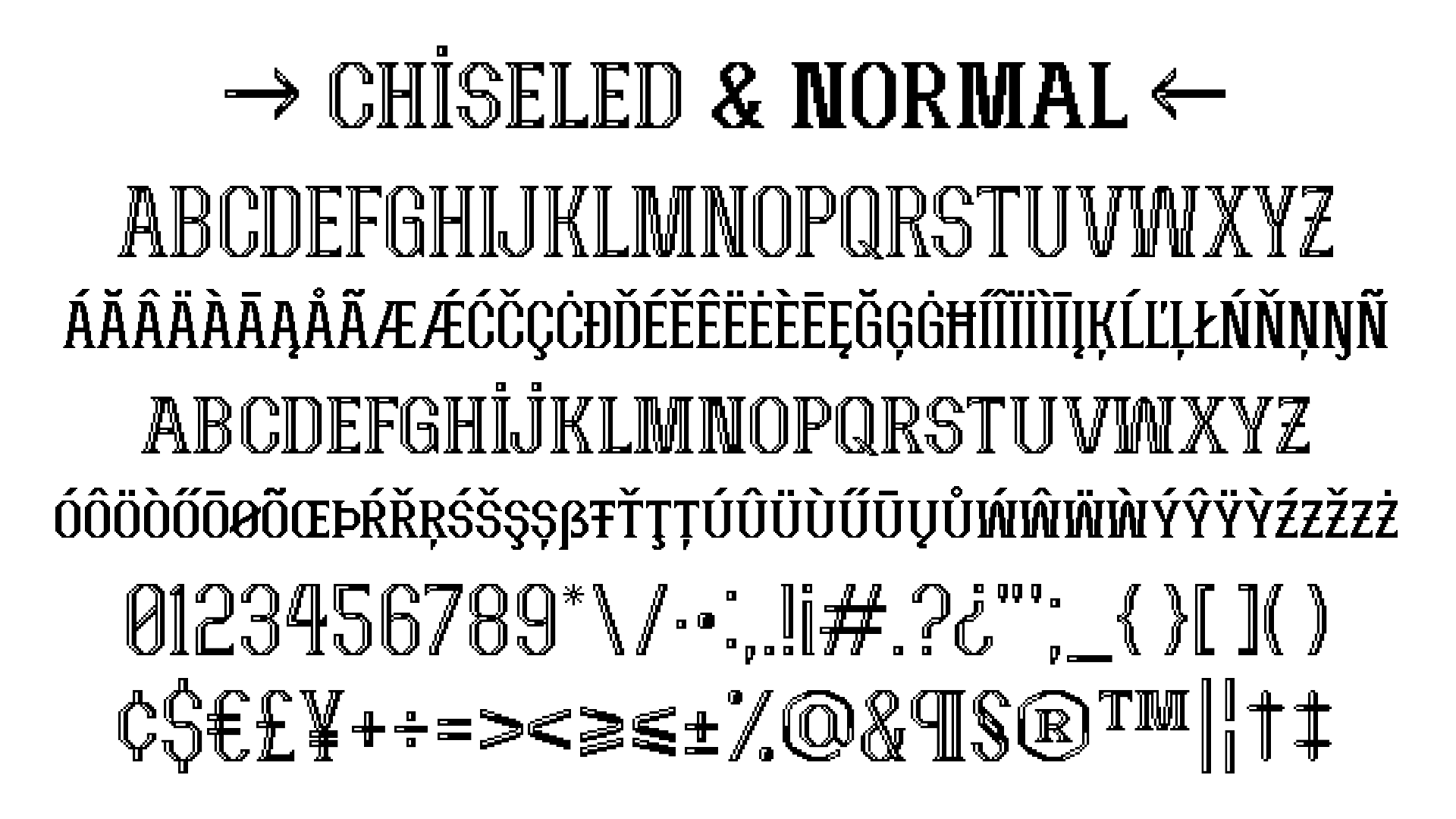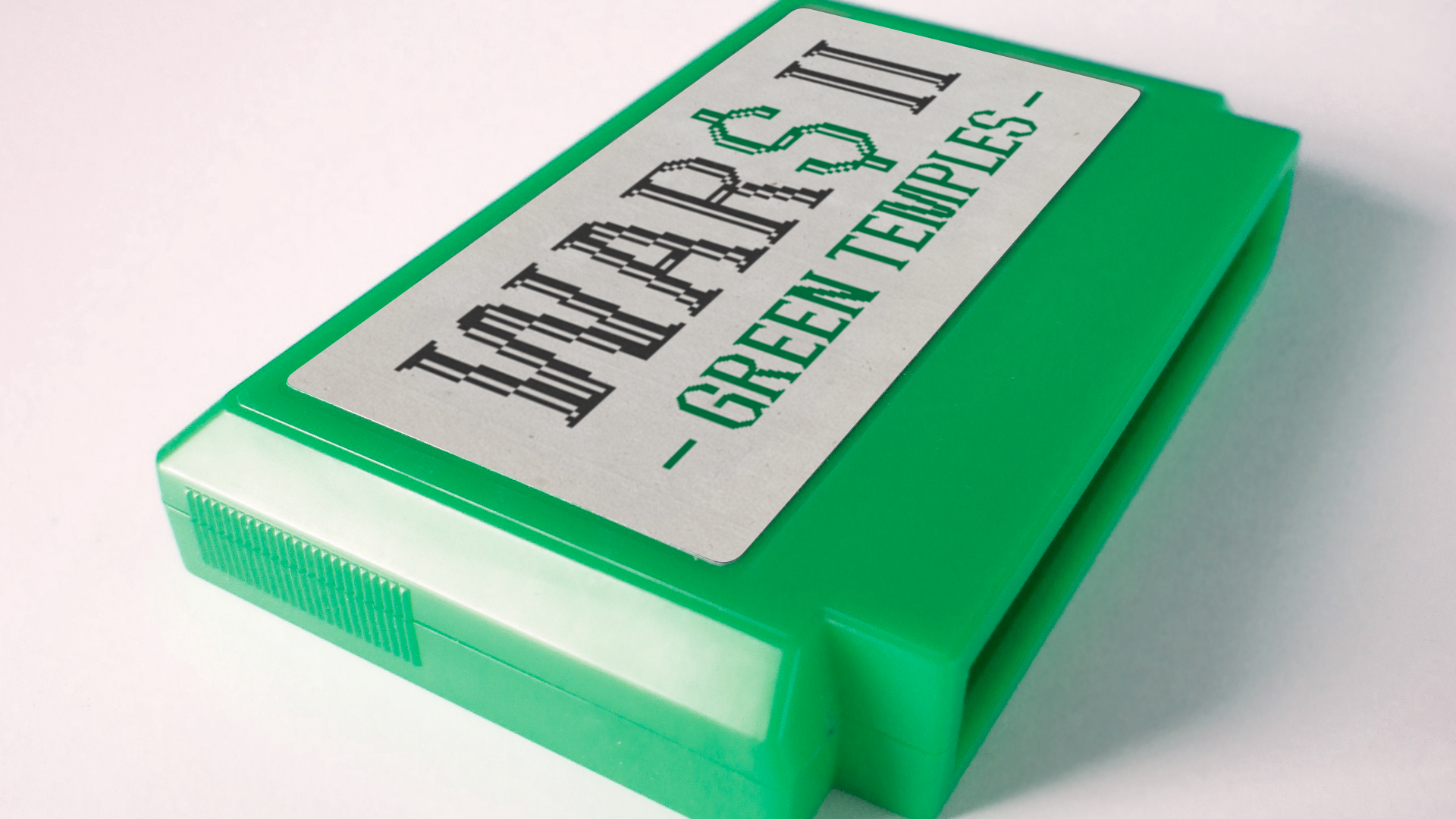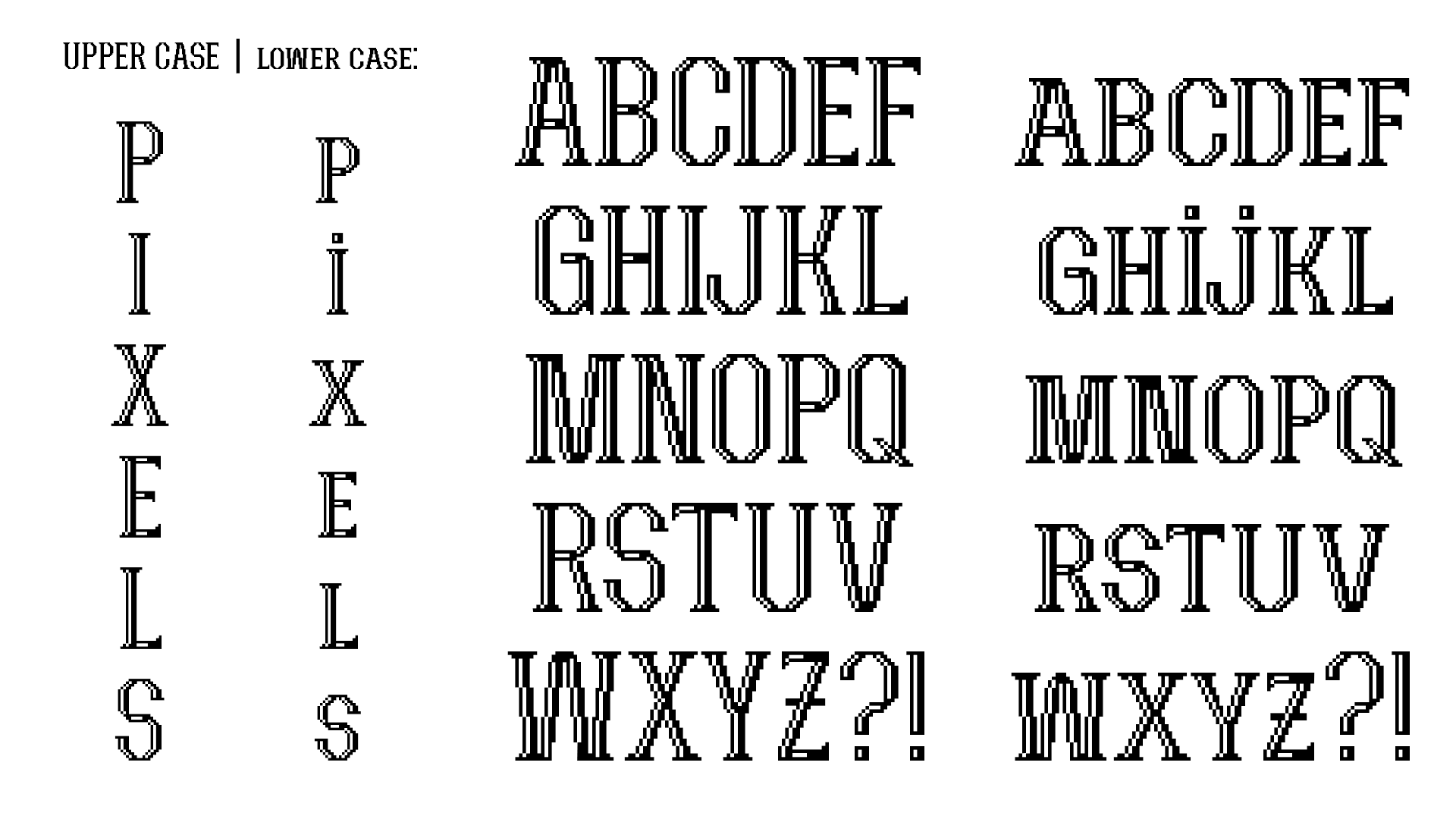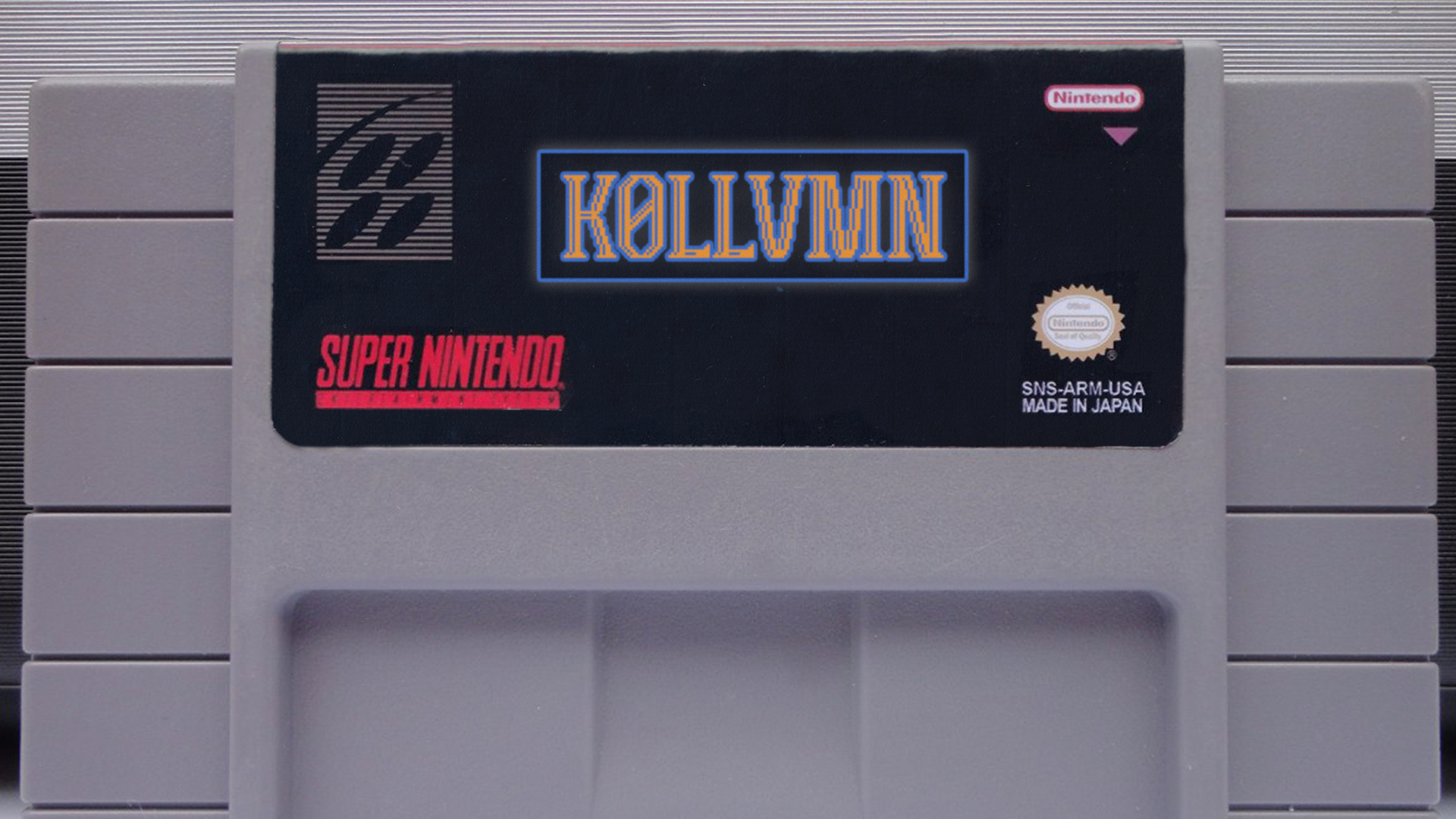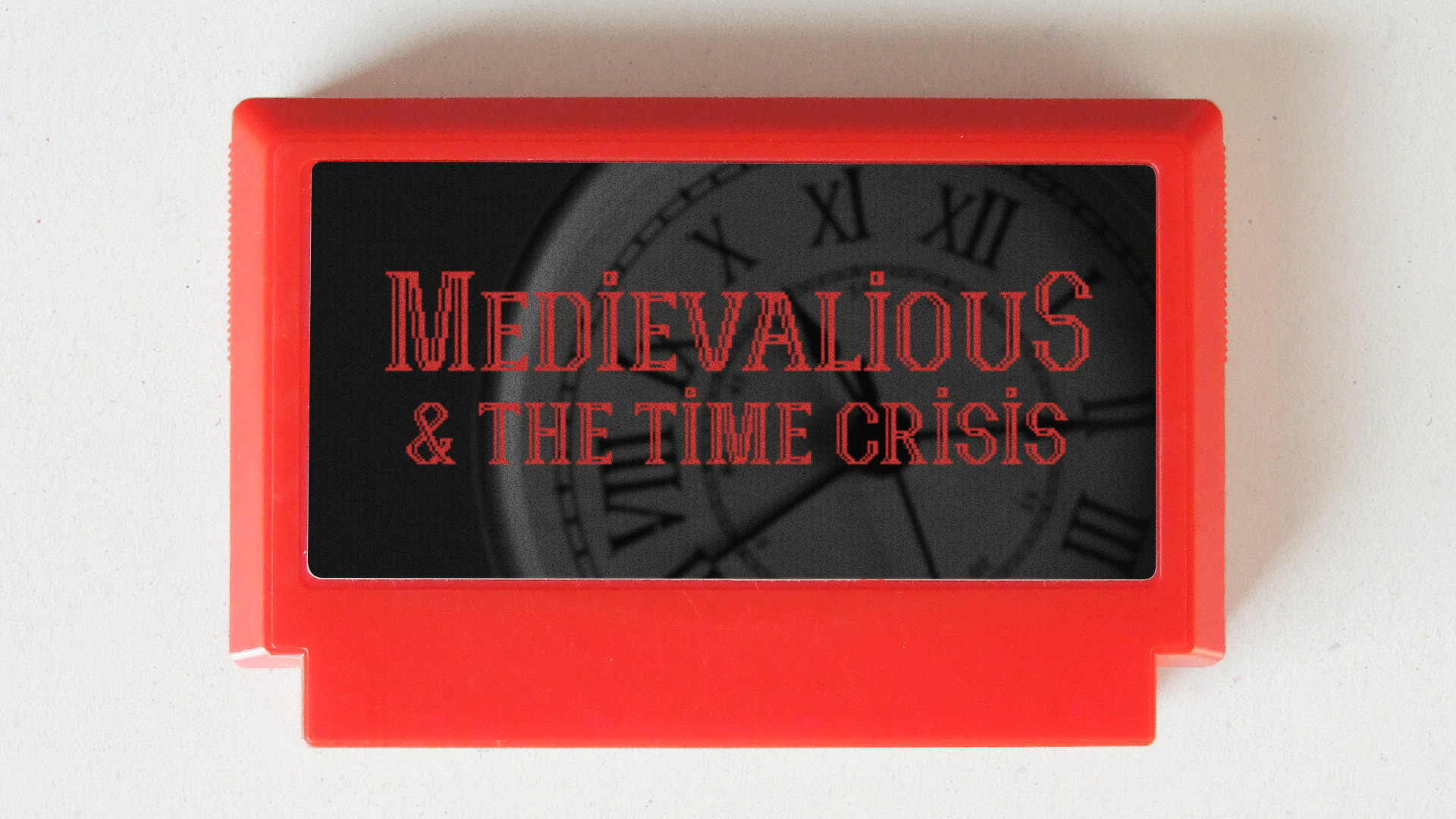
Arcadum Typeface
Arcadum is one approach to a mix of pixel style
and font construction with roman capitals.
It comes in two weights: chiseled and normal.